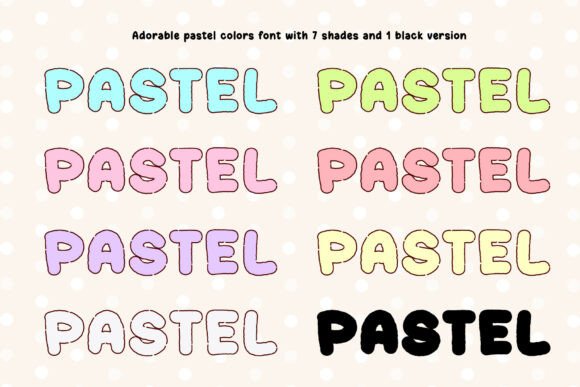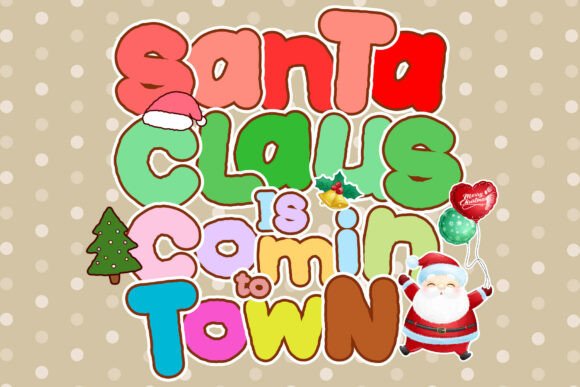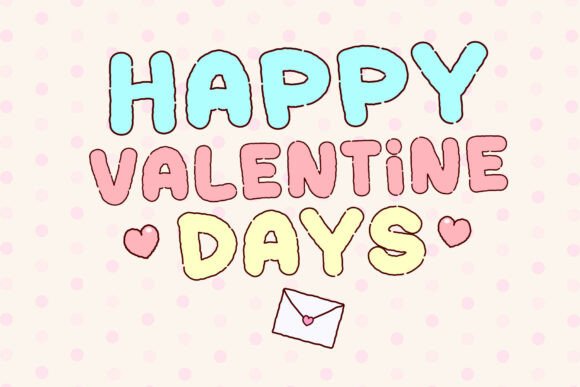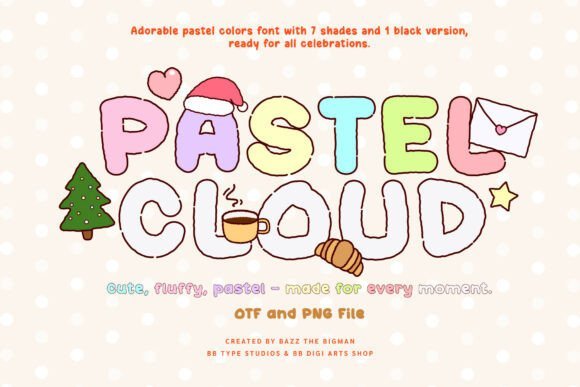
Introduction to Pastel Cloud Font
Introducing Pastel Cloud – an enchanting and plush hand-drawn font, beautifully brushed in gentle hues of pastel colors.
Crafted with seven soothing pastel color styles and a classic black version, it effortlessly illuminates both whimsical and crisp design concepts This all-in-one font is deliberately curated for every occasion, event, and festivities, making it a versatile favorite.